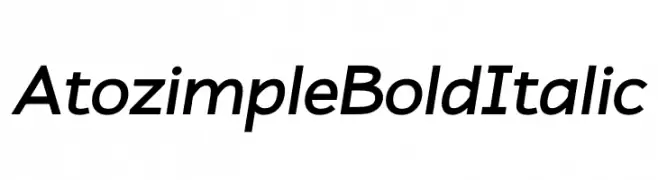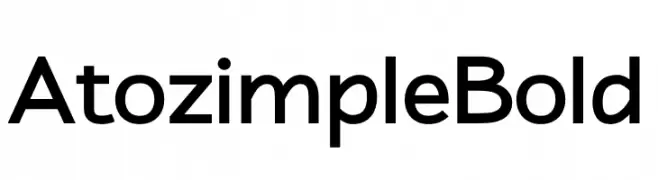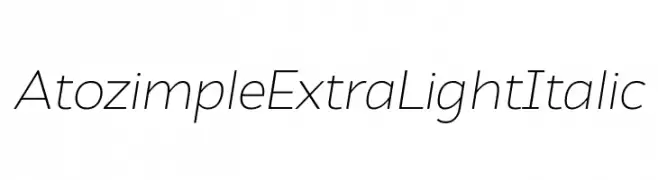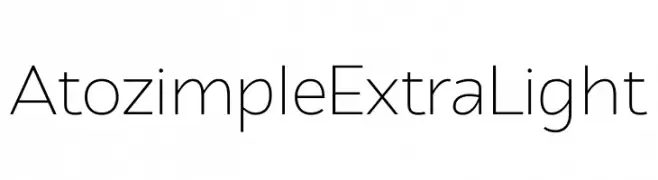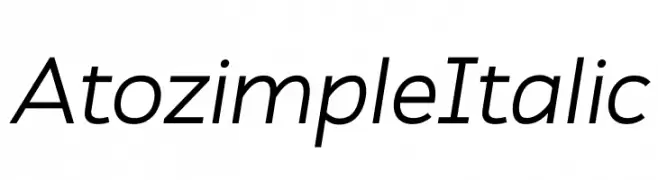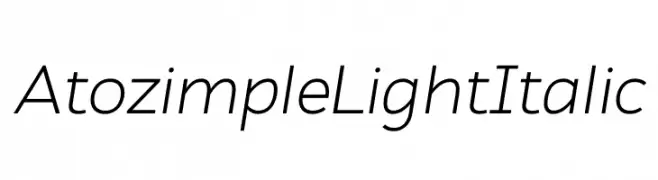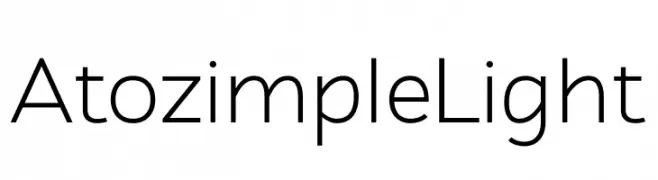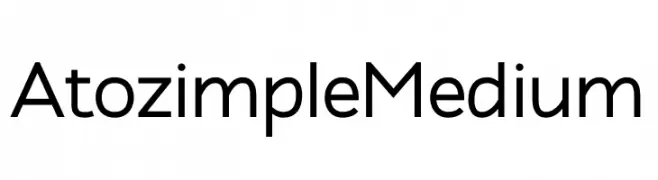
• Atozimple Bold
A bold, modern sans-serif font with clean lines and strong visual impact.
• Atozimple Bold Italic
A bold, italic, and modern typeface with a dynamic slant.
• Atozimple ExtraBold
A bold, modern sans-serif font with clean lines and geometric shapes.
• Atozimple ExtraBold Italic
A bold, italic font with a modern and dynamic style.
• Atozimple ExtraLight
A clean, minimalist font with uniform stroke width and modern appeal.
• Atozimple ExtraLight Italic
A sleek, extra light italic font with a modern and sophisticated style.
• Atozimple Italic
A modern, italic sans-serif font with clean lines and a dynamic style.
• Atozimple Light
A modern, clean sans-serif font with consistent stroke width and excellent readability.
• Atozimple Light Italic
A sleek, modern, light italic sans-serif font with smooth curves and clean lines.
• Atozimple Medium
A clean, modern sans-serif font with geometric letterforms.